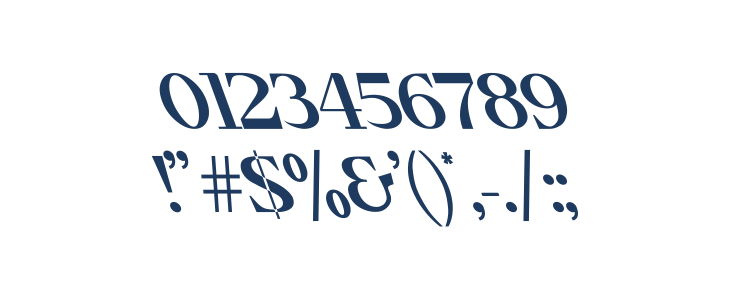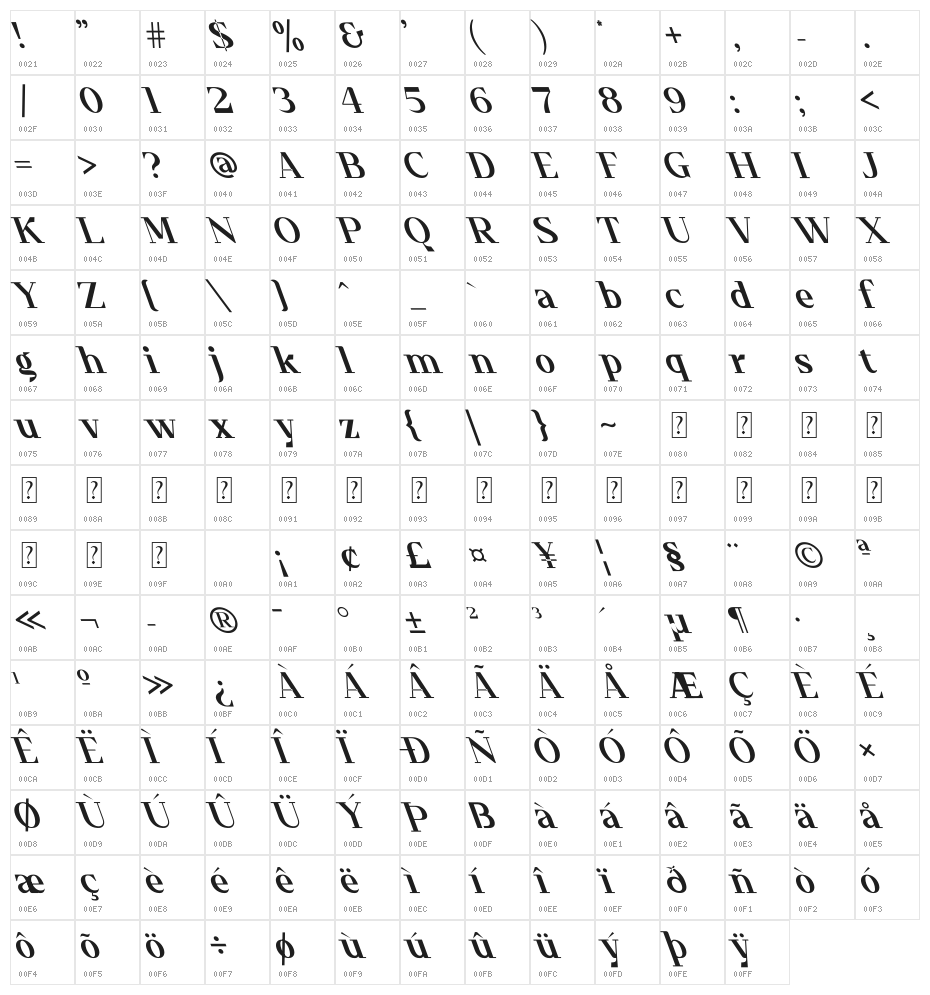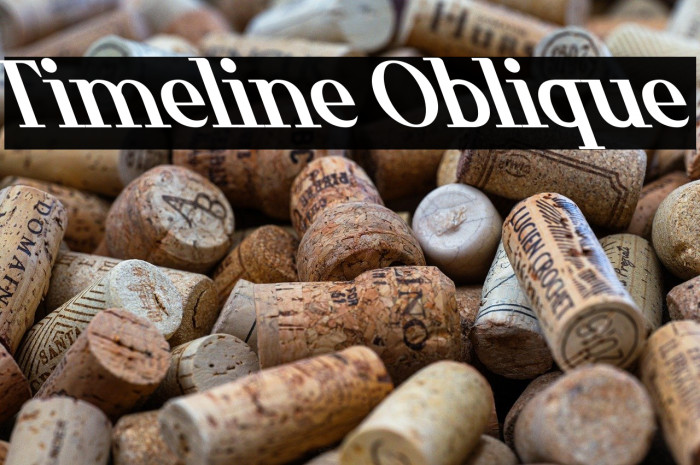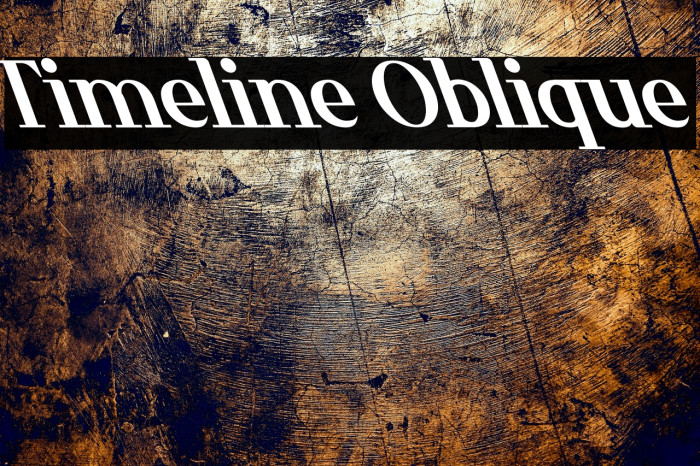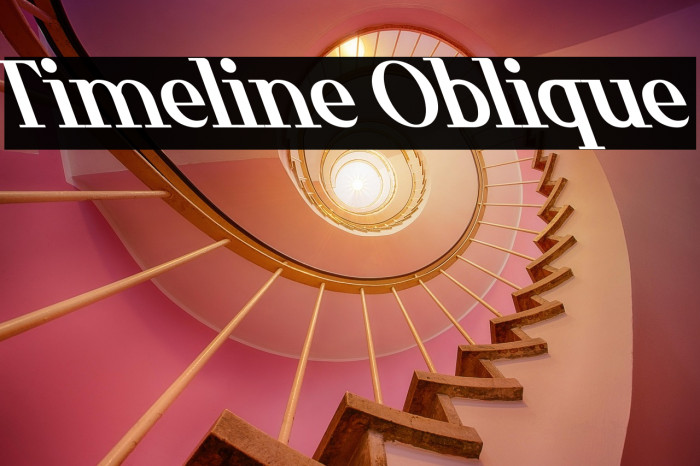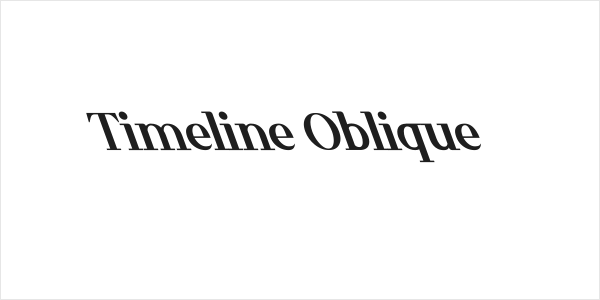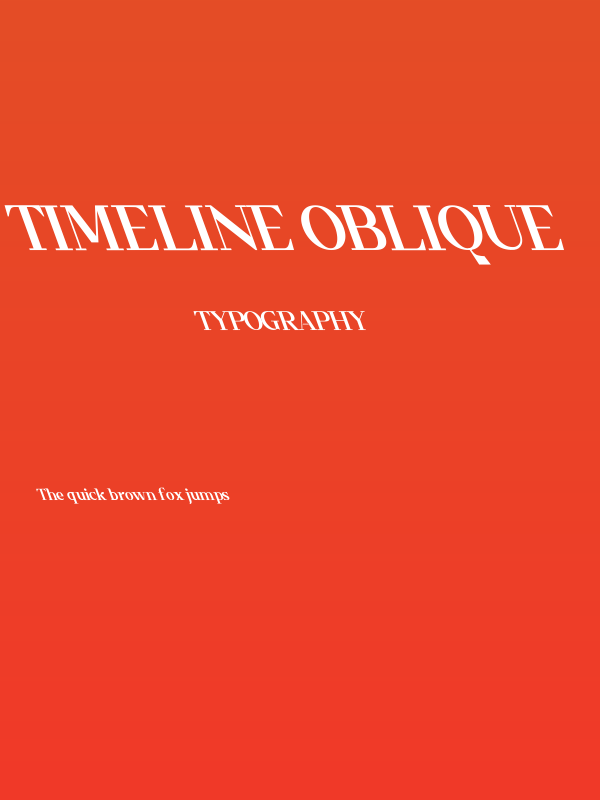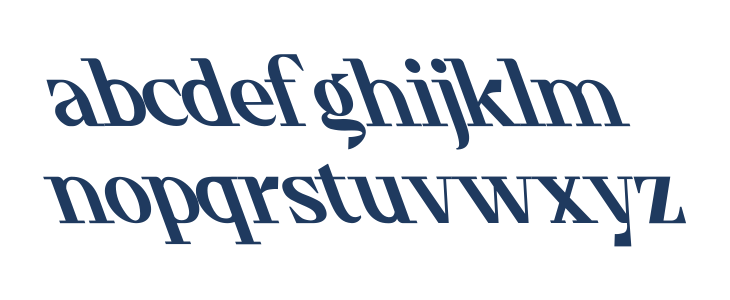
Timeline Oblique Font
Timeline Oblique Description
This font features an oblique style with a strong, dynamic presence. The characters are sharply angled, giving a sense of motion and energy. The serifs are pronounced, adding a touch of elegance and sophistication. The uppercase letters are bold and commanding, while the lowercase letters maintain a consistent flow. Numbers are clear and distinct, making them easy to read. Special characters are well-integrated, maintaining the overall aesthetic of the font. The font's design is suitable for making a bold statement, with its high contrast and distinctive style.
| Proposed Projects | Ideal for branding, editorial design, and impactful headlines. |